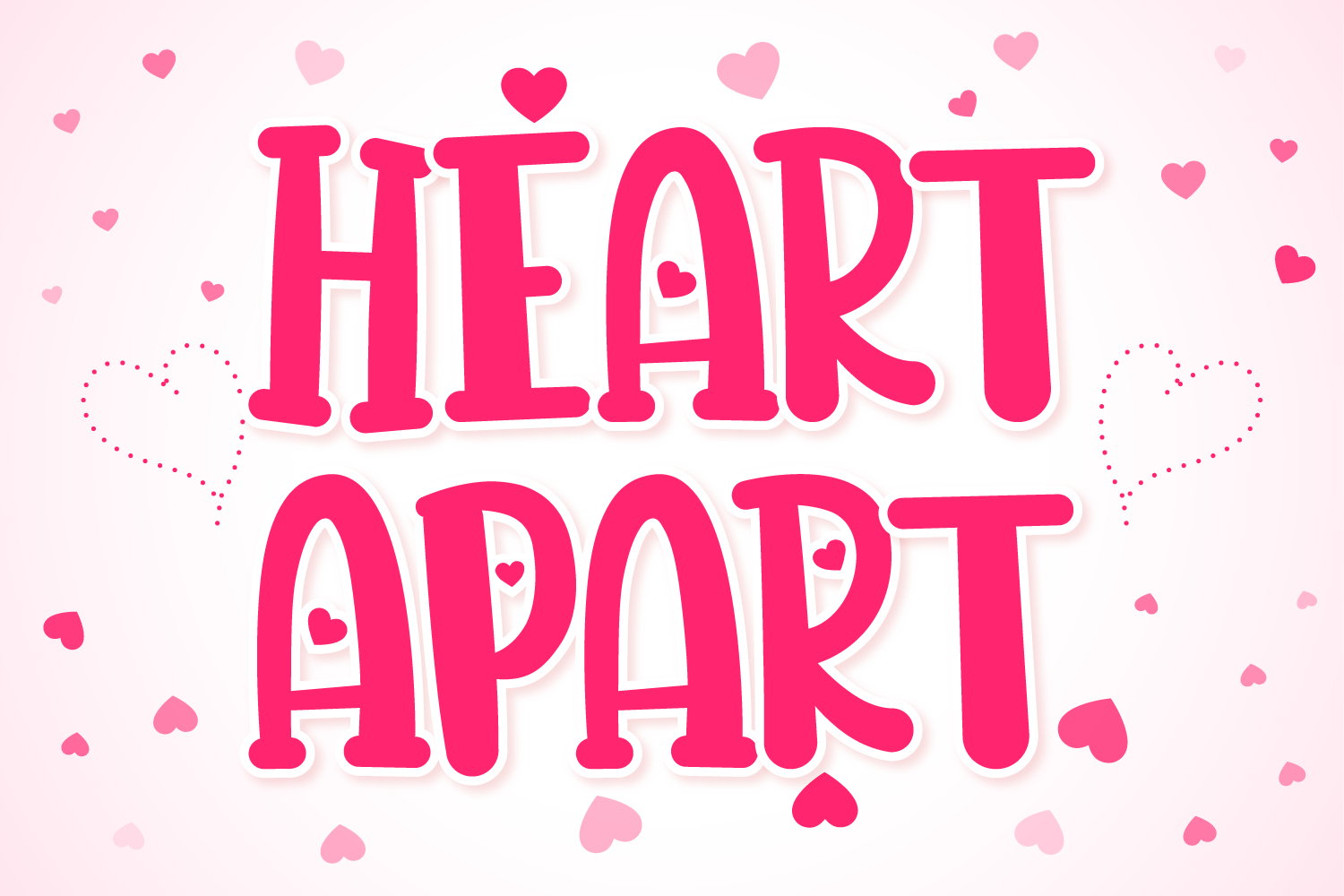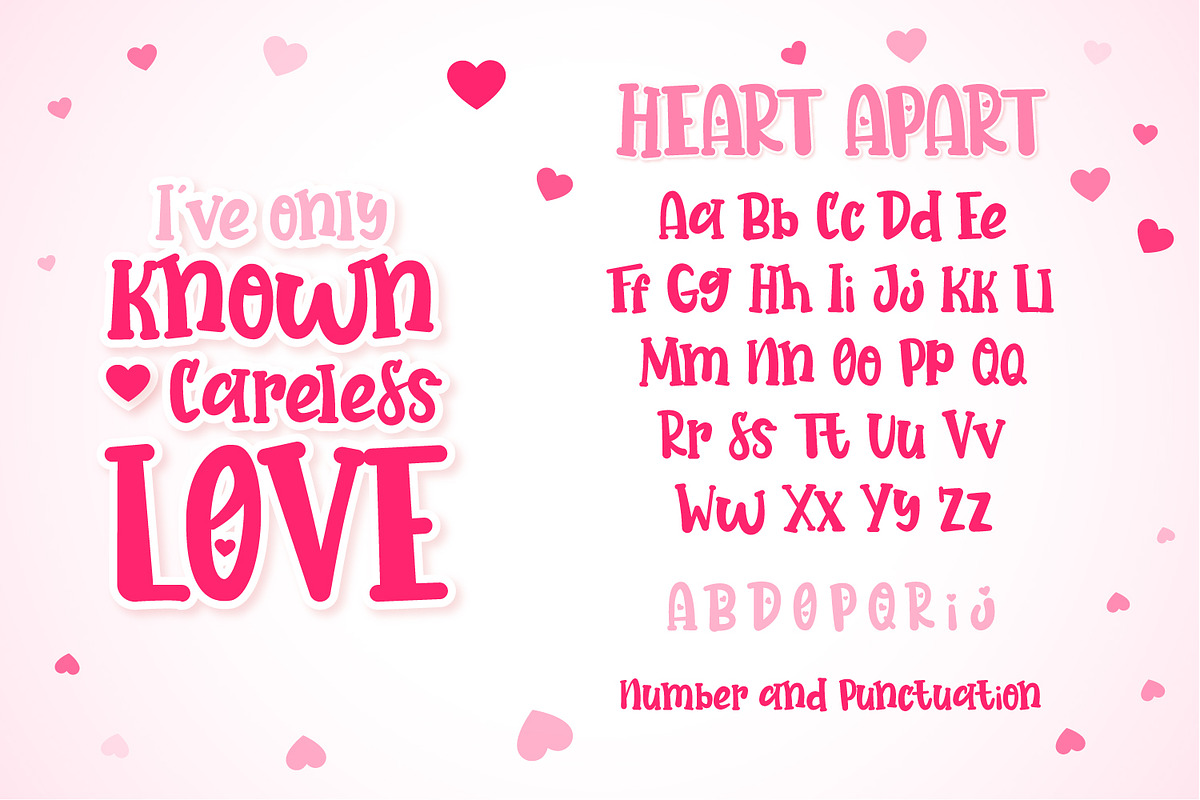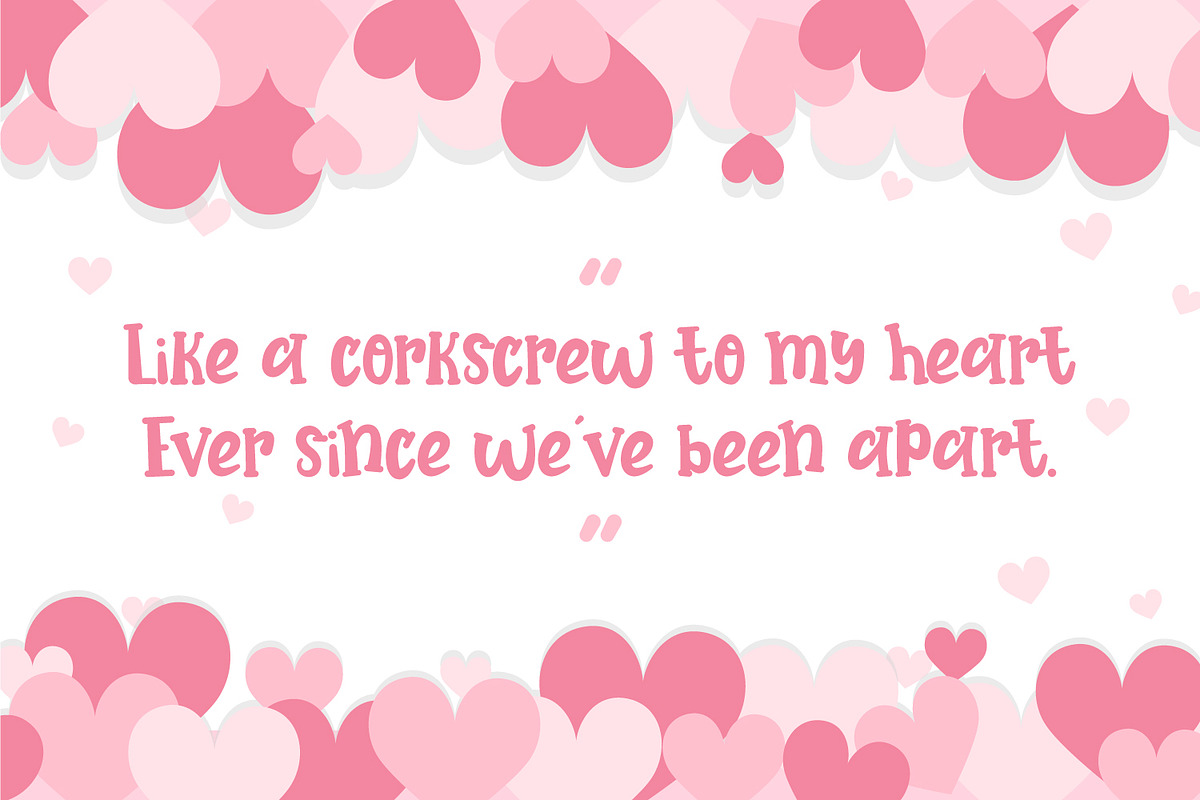
Heart Apart Lovely Font
Heart Apart is a cute and lovely font designed to perfectly combine an informal, sassy, romantic playful, a cute bouncy sans font. This one-of-a-kind typeface will add a unique charm to any design project! The connected heart feature makes this font even more charming.